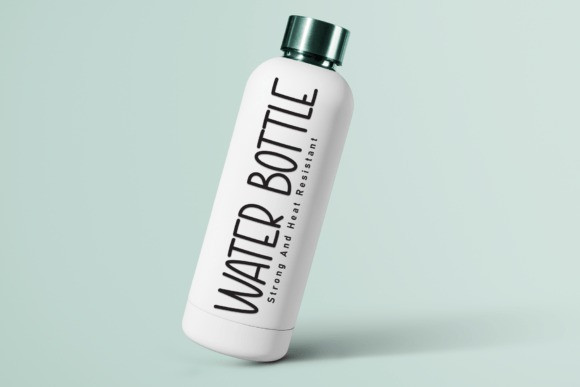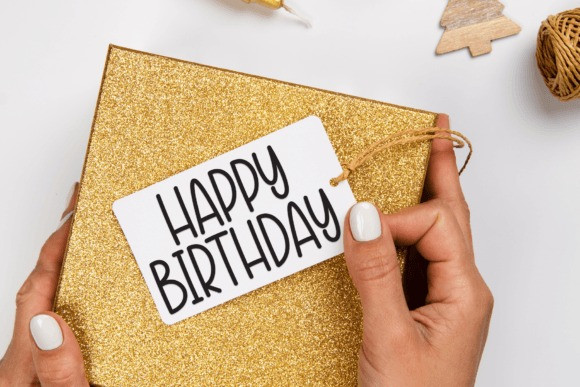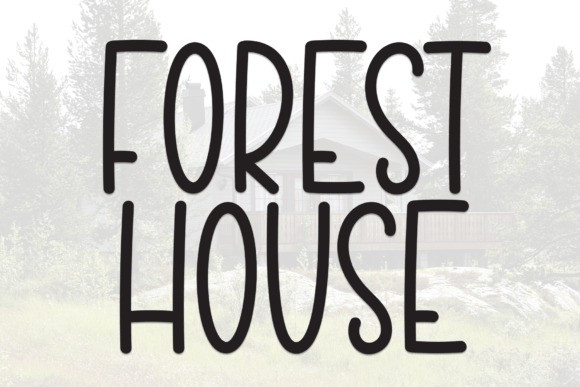
Forest House Font
Forest House Font is a sweet and friendly handwritten font. Cute and fun, this font is ideal for writing wedding invitations, cards, or any other design that might need a fun touch!